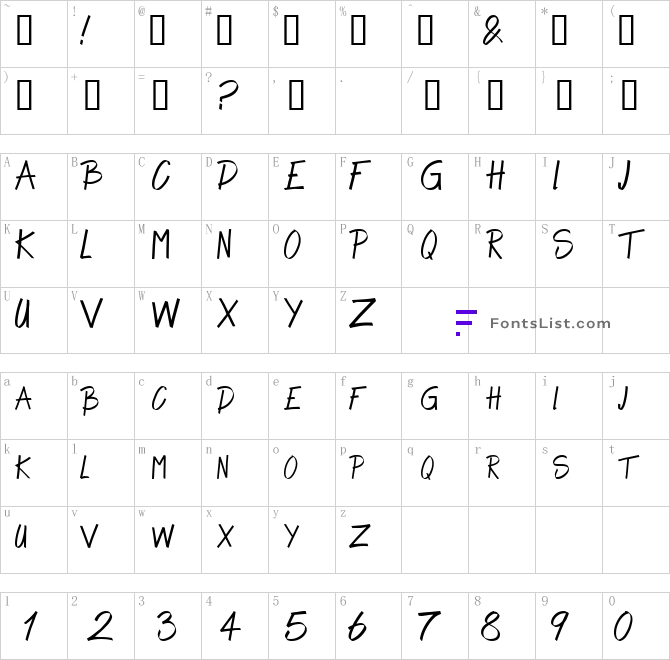
- Font Name:Alpha Thin
Alpha-Thin.ttf is a very beautiful artistic font, Alpha-Thin.ttf is widely used in the design and printing of various books and pictures,Alpha-Thin.ttf has a strong visual impact,Alpha-Thin.ttf is a commonly used font in newspapers, magazines and books, and is used in posters, e-commerce Poster design, store design, logo design, font design and other fields.Alpha-Thin.